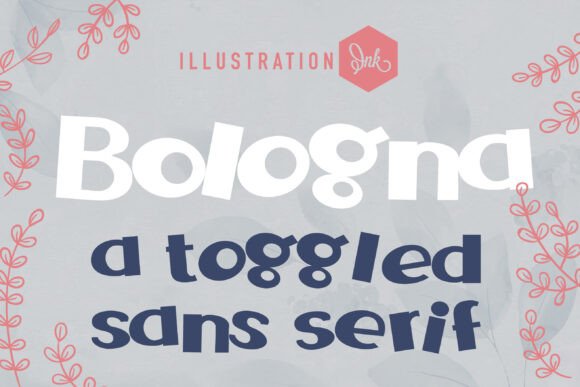
The Whimsical World of Bologna Font: A Designer’s Delight
I’ll never forget the time I was working on a project for a client’s birthday party invitation. I had all the design elements in place – the colors, the graphics, the overall aesthetic – but something was missing. The font I was using just wasn’t doing it for me. It was too formal, too boring. I needed something that would capture the playful, celebratory vibe of the party. That’s when I stumbled upon the Bologna Font.
This hand-crafted font is a whimsical sans serif with chunky, thick, whimsical lettering that’s perfect for invitations, greeting cards, and other creative projects. As a designer, I can attest to the fact that handwritten fonts like Bologna are incredibly versatile and can be used for a variety of purposes, from formal to informal.
An Honest Review of Bologna Font
- ✨ Unique and quirky design that’s sure to stand out
- ✅ Easy to read, even in smaller sizes
- 💕 Perfect for creative projects that require a personal touch
- 🎉 Great for titles, headings, and emphasis text
While I absolutely adore the Bologna Font, there are a few things to keep in mind. 🤔 For example, the font can be a bit limited when it comes to formatting options. ⚠️ Additionally, some of the letters may appear a bit inconsistent in terms of spacing, which can make it tricky to use for longer blocks of text.
The Story Behind Bologna Font
The Bologna Font was designed by a team of creatives who wanted to create a font that would capture the whimsy and playfulness of hand-crafted lettering. Inspired by the classic sans serif fonts of the past, they set out to create a font that would be both unique and functional. The result is a font that’s perfect for creative projects that require a personal touch.
Q: What is the Bologna Font?
A: The Bologna Font is a hand-crafted, whimsical sans serif font with chunky, thick lettering.
Q: What can I use the Bologna Font for?
A: You can use the Bologna Font for a variety of creative projects, including invitations, greeting cards, titles, headings, and emphasis text.
Q: Is the Bologna Font easy to read?
A: Yes, the Bologna Font is easy to read, even in smaller sizes.